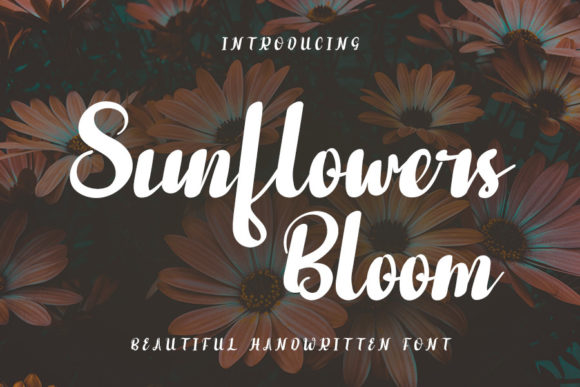
Introducing Sunflowers Bloom Font, a breathtaking creation by Kongsi.Co that will captivate your soul with its enchanting beauty and allure. This script font is not merely a collection of letters; it's a symphony of elegance and grace, designed to elevate your creative projects to new heights of sophistication.
Immerse yourself in the world of Sunflowers Bloom. Allow its smooth, flowing curves to dance across your digital canvas, leaving a trail of visual splendor that will leave your audience spellbound. With its carefully crafted characters, every word you type will blossom into a work of art, a testament to your discerning taste and unparalleled creativity.
Whether you're a seasoned designer seeking to add a touch of magic to your next project or a budding entrepreneur eager to make a lasting impression, Sunflowers Bloom is the perfect companion for your creative journey.
But what truly sets Sunflowers Bloom apart is its versatility. This font is a chameleon of style, effortlessly adapting to a myriad of design aesthetics. Whether you're working on a sleek and modern branding project, a whimsical invitation, or a heartfelt thank-you card, Sunflowers Bloom will effortlessly complement your vision, adding a touch of elegance and charm that will leave your audience swooning.